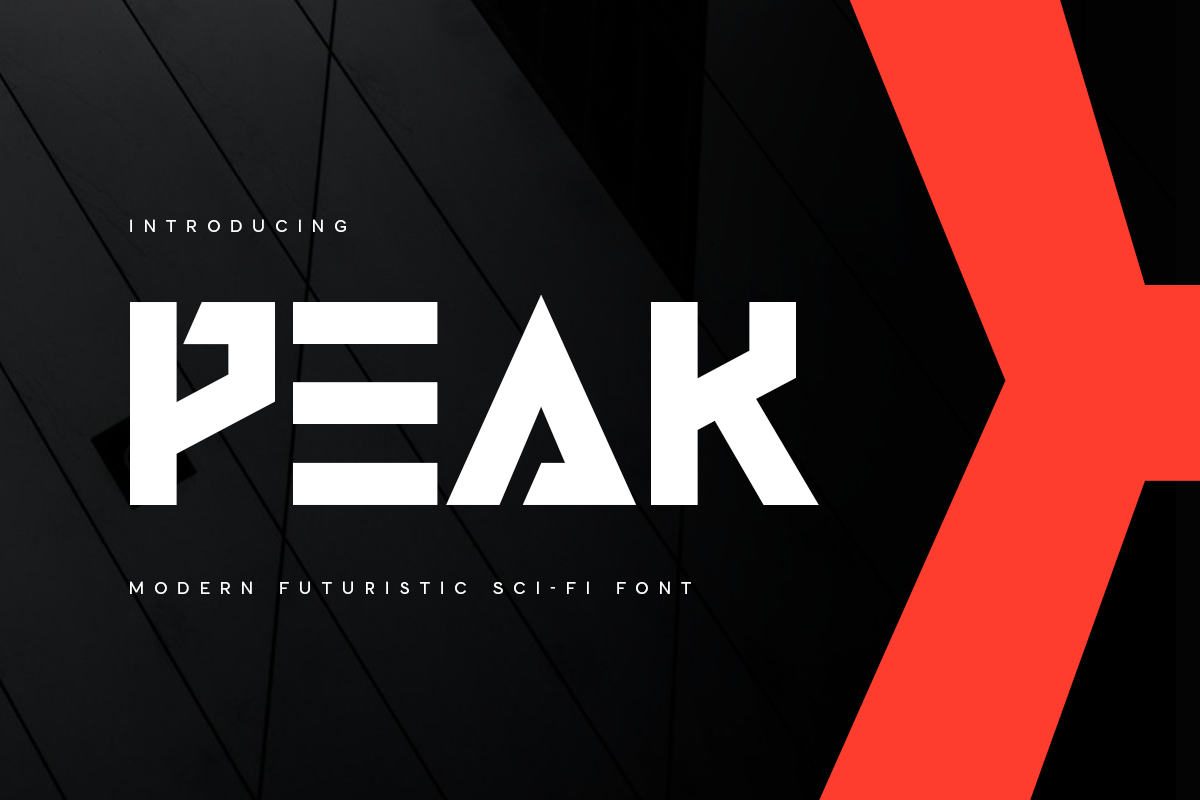
PEAK - Modern Futuristic Sci-fi Font
Elevate your designs with PEAK - the ultimate modern futuristic sci-fi typeface for standout technology projects. PEAK delivers cutting-edge typography specifically crafted for sci-fi, modern technology, and futuristic design needs. This contemporary typeface features extra outline styles that amplify the futuristic aesthetic of your projects. Perfect for cryptocurrency branding, technology headlines, film titles, and sci-fi themed designs. The modern styling and technological feel makes it idea...